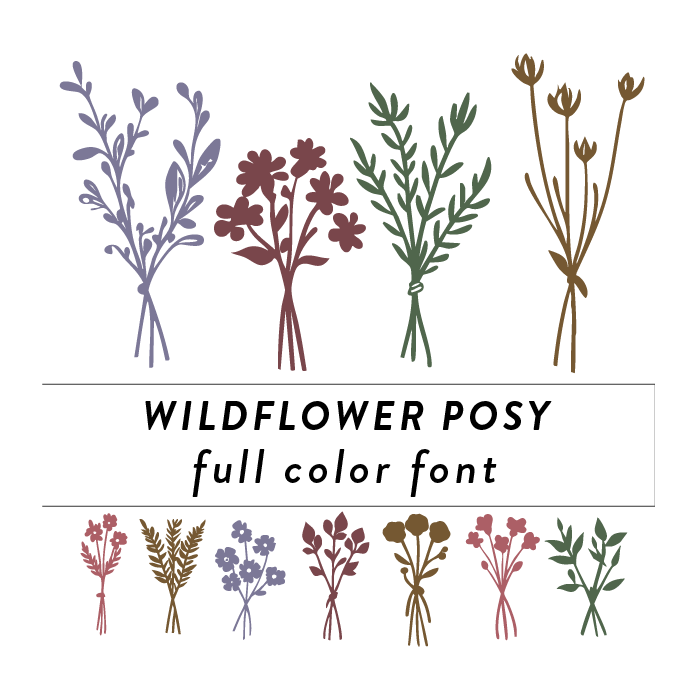
Wildflower Posy Full Color Font is a whimsical and vibrant font design featuring intricate floral elements such as flowers and stems. The colorful and detailed nature of this font makes it perfect for adding a touch of nature and beauty to any creative project. Ideal for invitations, greeting cards, and branding materials, this font design will surely make your text stand out in a unique and eye-catching way. Use for wedding or engagement parties!